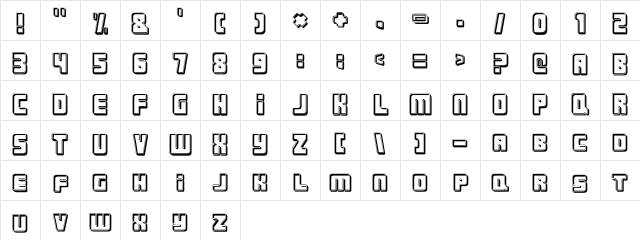
Urban Constructed Cutter Free Font
Urban Constructed Cutter
Style: Cutter
Foundry: Nils von Blanc (www.nils-von-blanc.de)
Designer: Nils von Blanc
Urban Constructed Family
Urban Constructed Cutter
Design Context for Urban Constructed
Urban Constructed is a composed and adaptable typeface that performs quietly and consistently across a wide range of design contexts.